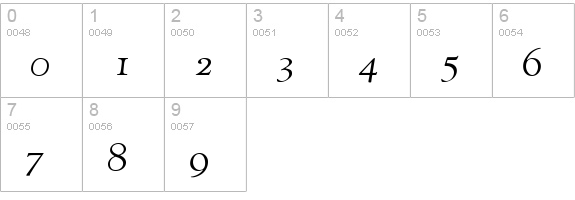
GoudyOldstyleH-Italic Font Details
GoudyOldstyleH-Italic is a distinctive, italic variant in the GoudyOldstyleH typeface family \xE2\x80\x94 well suited to design and typography projects.
GoudyOldstyleH-Italic is a classic and elegant font that exudes sophistication and timeless charm. Its graceful italic style adds a touch of refinement to any design project, making it perfect for use in invitations, branding materials, and editorial content. With its distinctive letterforms and subtle flourishes, GoudyOldstyleH-Italic is a versatile typeface that effortlessly combines tradition with modernity. Best of all, GoudyOldstyleH-Italic is free to download at FontsMarket.com. Whether you're a designer looking to add a touch of sophistication to your projects or a creative looking for a stylish font for personal use, GoudyOldstyleH-Italic is the perfect choice. Download it today and elevate your designs with this exquisite typeface.